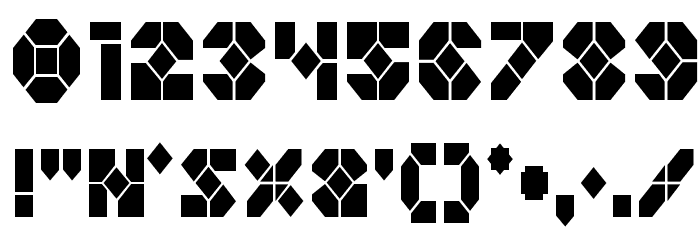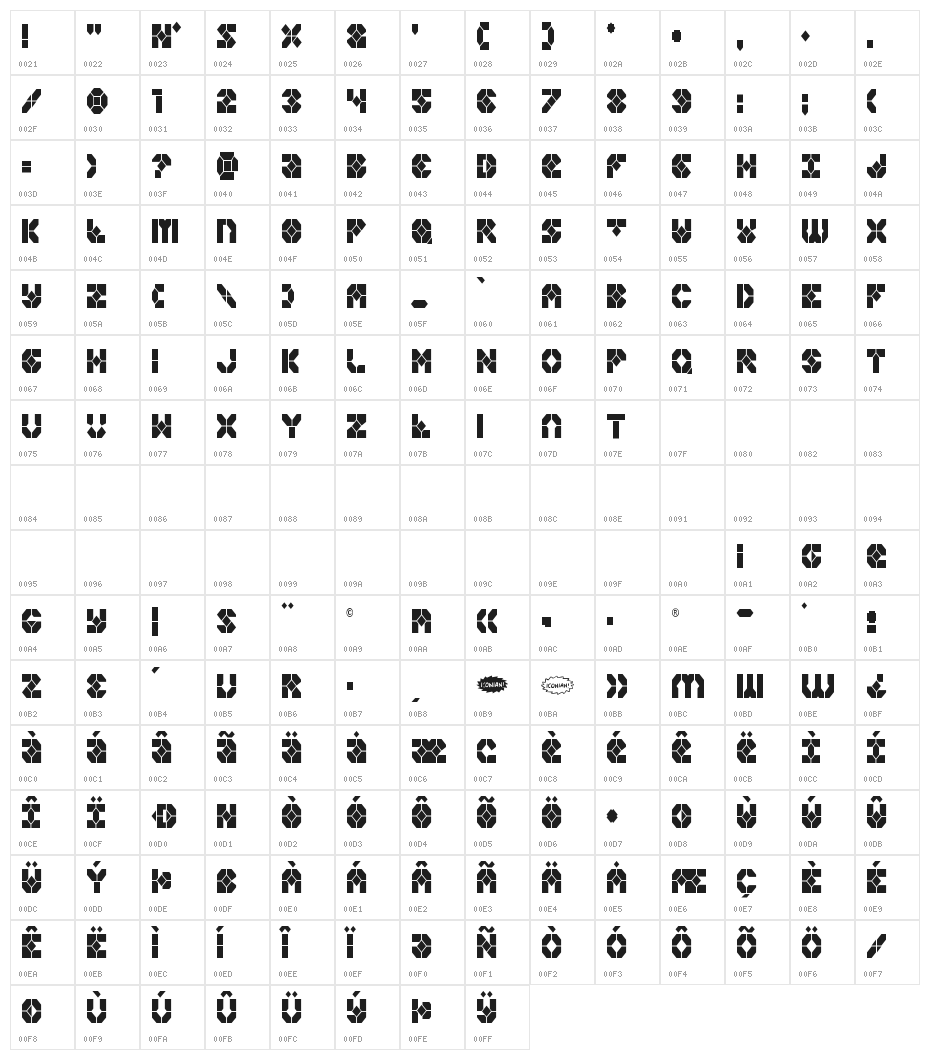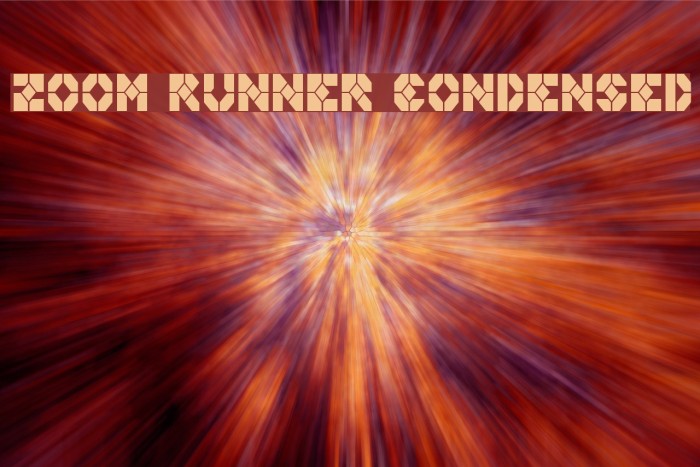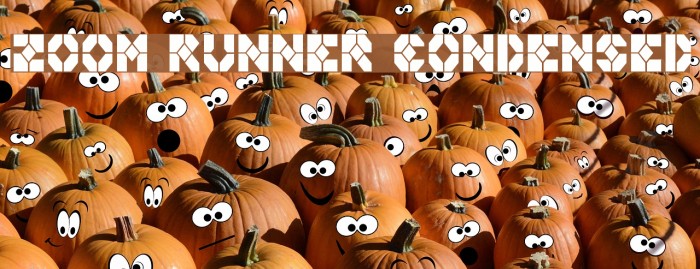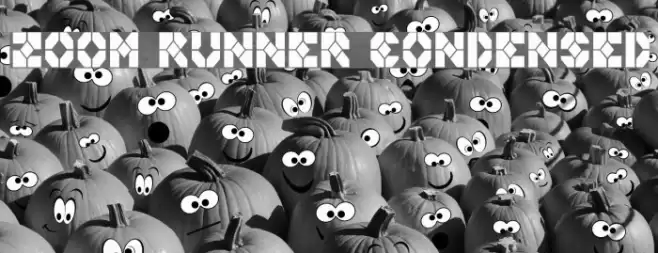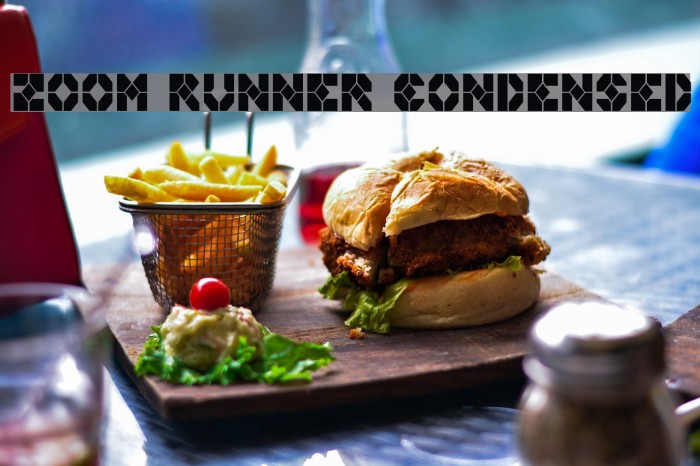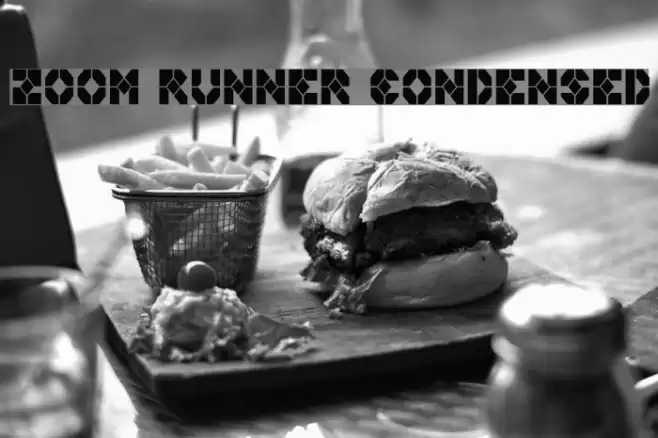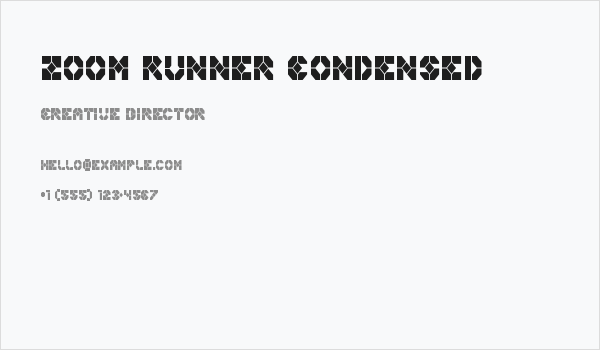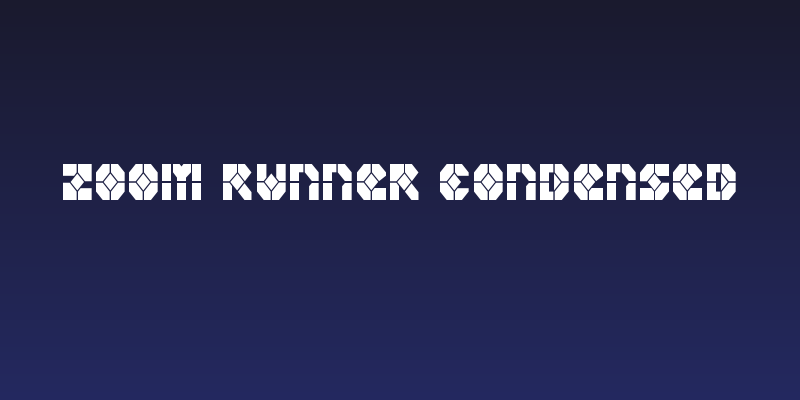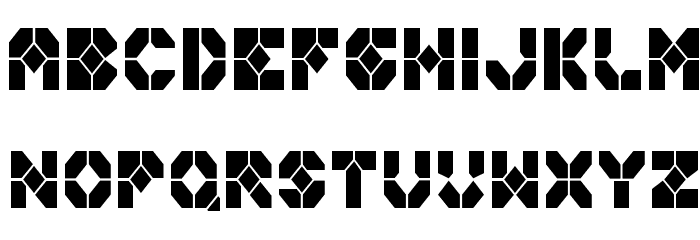
Zoom Runner Condensed Font
Zoom Runner Condensed Description
This font features a bold, geometric design with a futuristic and digital aesthetic. Each character is constructed from a series of angular shapes, creating a blocky and modular appearance. The uniformity in the design gives it a cohesive look, while the sharp angles and straight lines contribute to its modern and edgy feel. The font is highly stylized, making it ideal for projects that require a strong visual impact. Its unique structure is reminiscent of digital displays or sci-fi themes, making it suitable for creative and tech-oriented applications.
| Proposed Projects | Ideal for tech-themed designs, video game titles, sci-fi posters, and digital interfaces. |